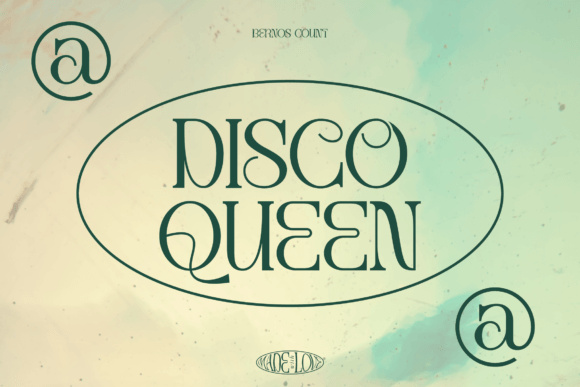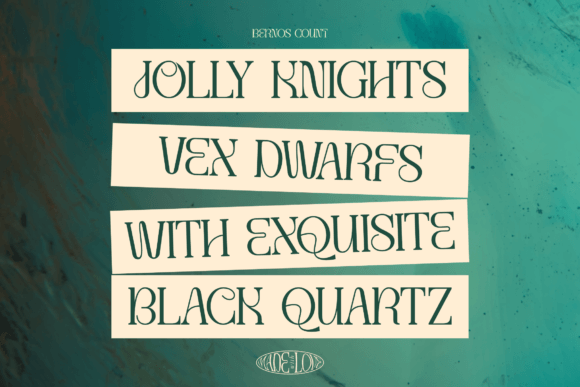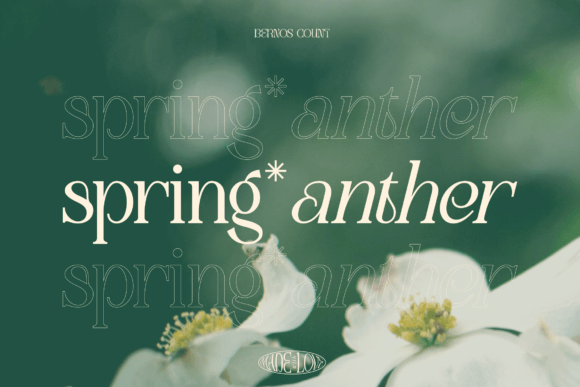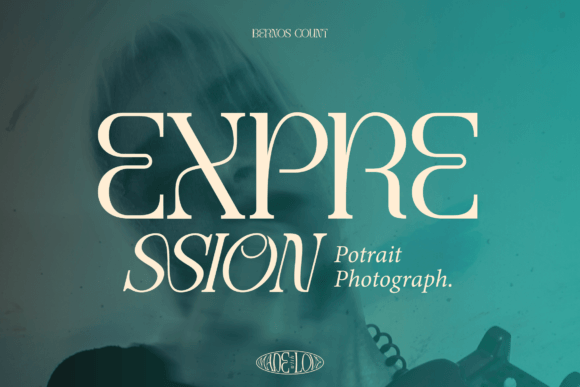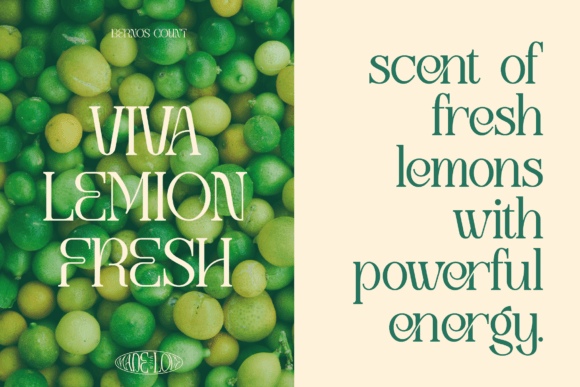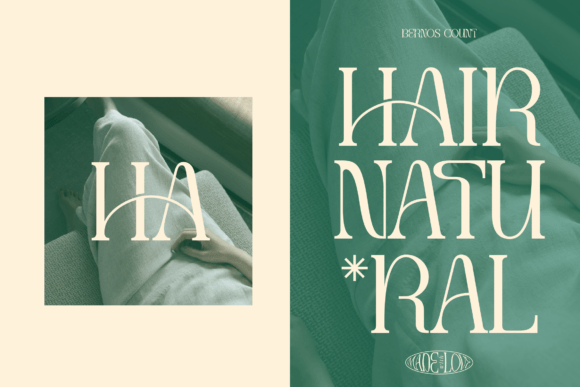
An Honest Review of Bernos Count
Bernos Count has become a go-to font in my design arsenal, and for good reason. Here’s what I love about it:
- ✨ Elegant and Classic Look: Bernos Count boasts a traditional serif design with a modern twist, making it perfect for headlines and professional designs.
- ✅ Easy Readability: The bold, distinct letters ensure that your message is conveyed clearly, even at smaller font sizes.
- ✅ Versatility: Whether you’re working on a luxury brand project or an elegant wedding invitation, Bernos Count adapts seamlessly.
Of course, no font is perfect, and there are a few quirks to be aware of:
- 🤔 Limited OpenType Features: While Bernos Count has some great stylistic alternates, it doesn’t offer the extensive OpenType features that some other fonts have.
- ⚠️ Not Ideal for Body Text: Due to its bold nature, Bernos Count is best used for headlines and titles rather than body text.
The Inspiration Behind Bernos Count
Bernos Count was designed with the aim of blending traditional serif elements with a modern aesthetic. The creator sought to produce a font that would be both timeless and contemporary, suitable for a variety of design projects. While the exact details about the designer might be scarce, the inspiration behind Bernos Count is clear: to craft a font that exudes elegance and professionalism.
| What makes Bernos Count unique? | Bernos Count stands out due to its classic serif design combined with a modern touch, making it both elegant and versatile. |
| Can I use Bernos Count for body text? | While Bernos Count is primarily designed for headlines, it’s not ideal for body text due to its bold nature. For body text, consider a font with better readability at smaller sizes. |
| Is Bernos Count suitable for digital use? | Yes, Bernos Count works well in digital designs, especially for headings and titles. Its clear and distinct letters ensure readability across various devices. |
| Does Bernos Count support OpenType features? | Bernos Count offers some OpenType features, including stylistic alternates. However, it may not have the extensive feature set of some other fonts. |